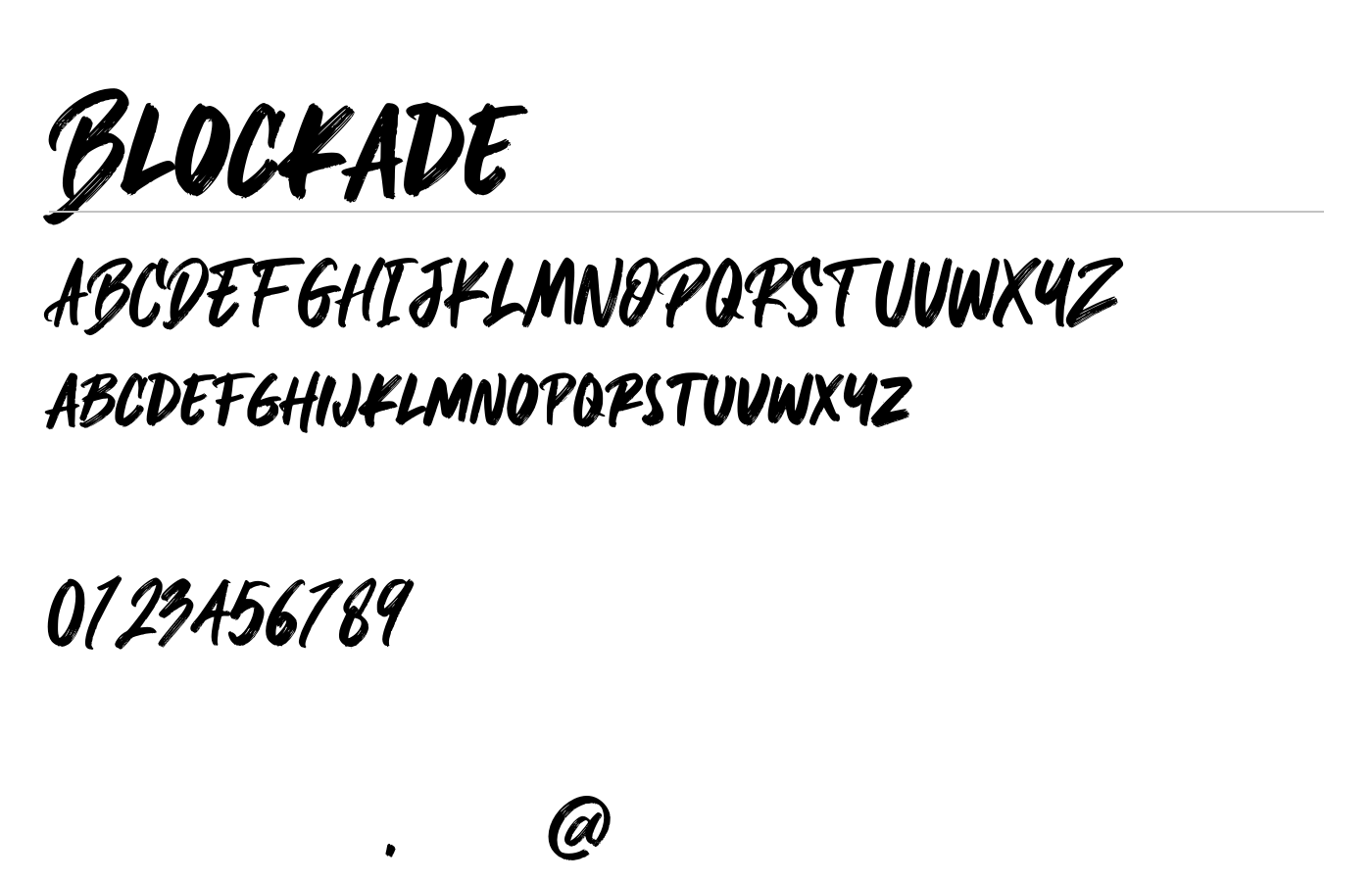
Blockade is a bold, energetic brush script font that conveys a raw and dynamic feel with its rough, textured strokes and casual, hand-painted style. Its uppercase, single-story letterforms and slightly condensed width make it perfect for creating eye-catching headlines, logos, or branding that needs a strong, artistic, and informal touch. This font works especially well for creative projects that want to communicate energy, creativity, and a modern, edgy personality.
Blockade Font
About Blockade Font